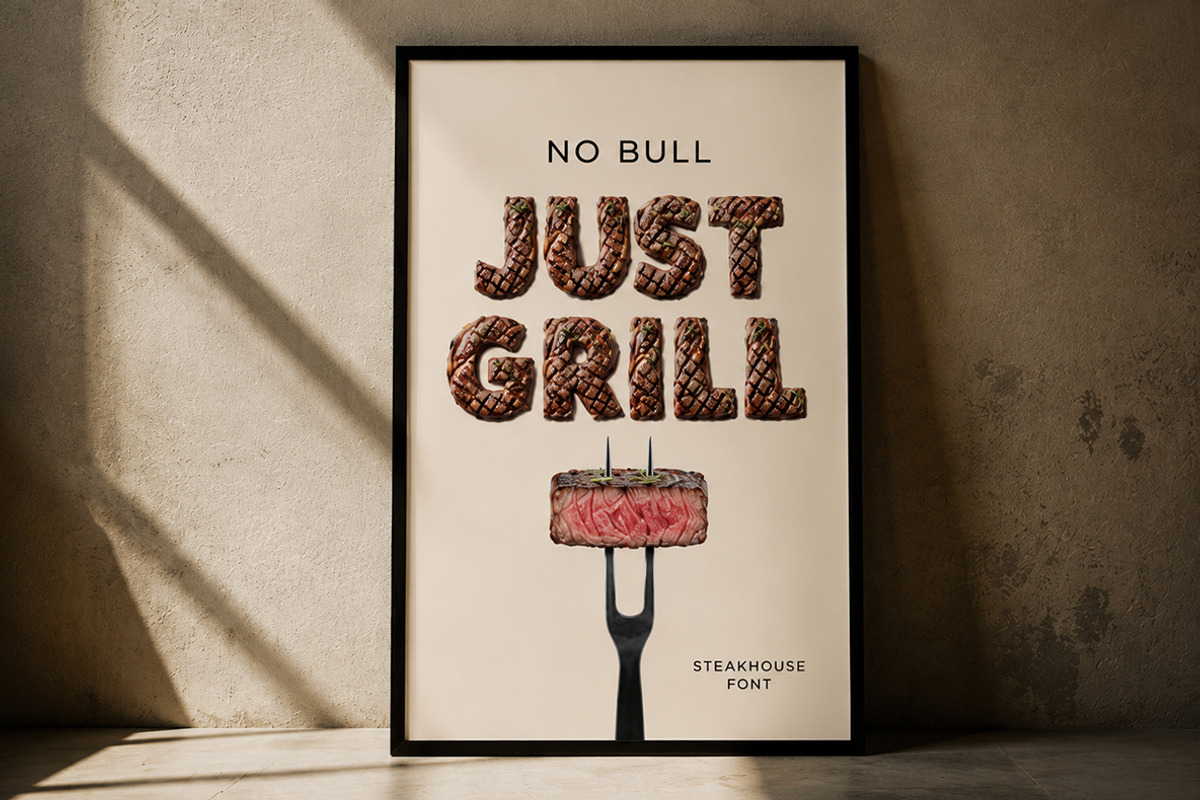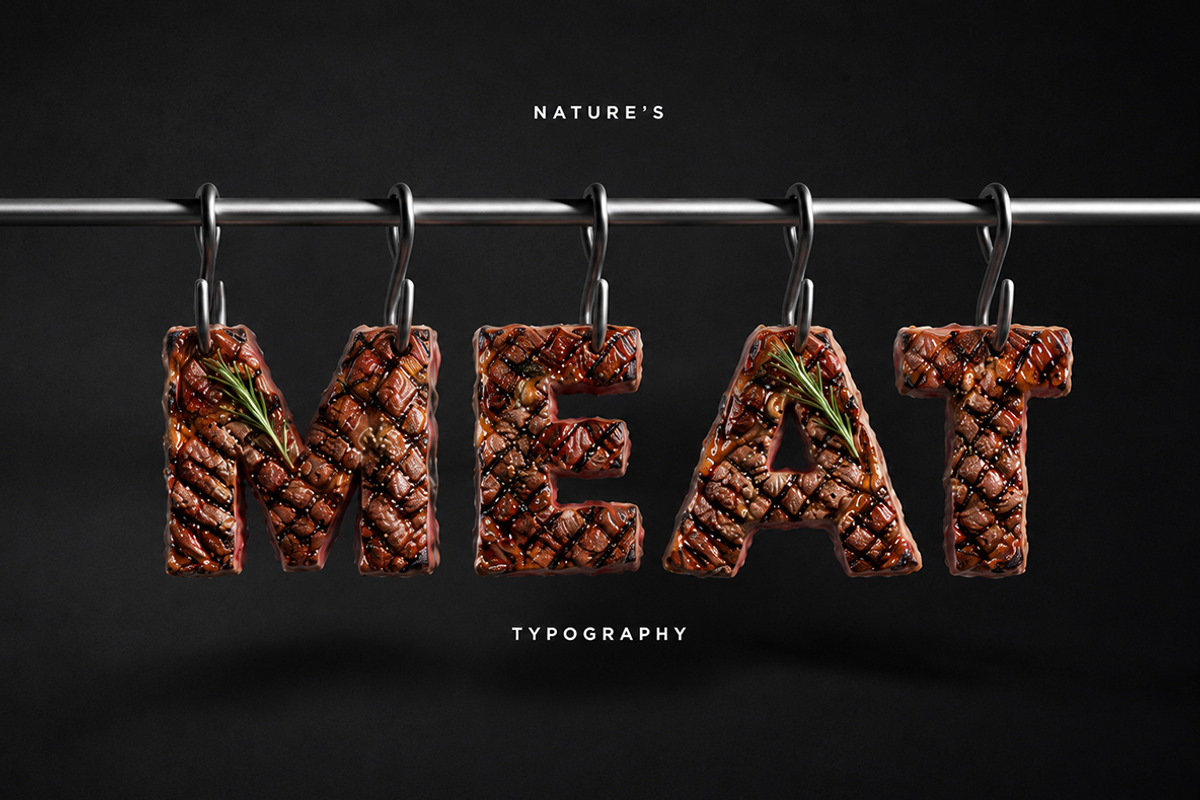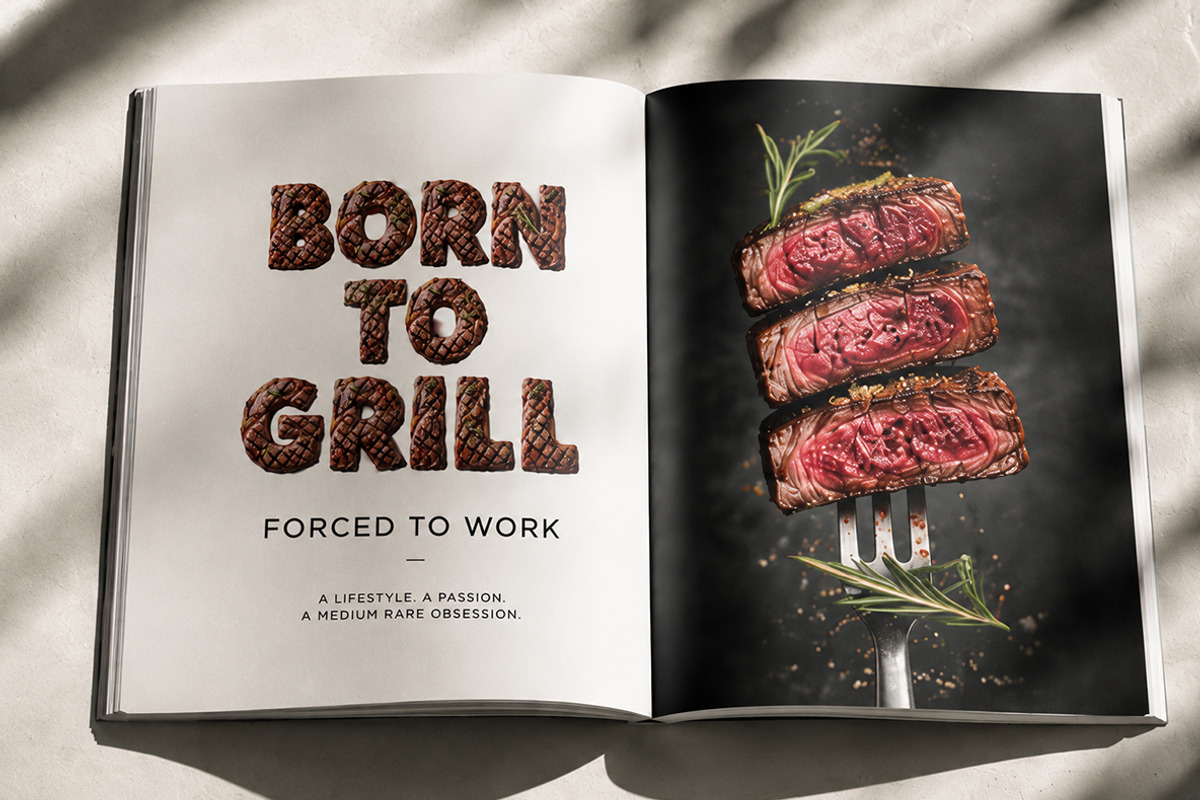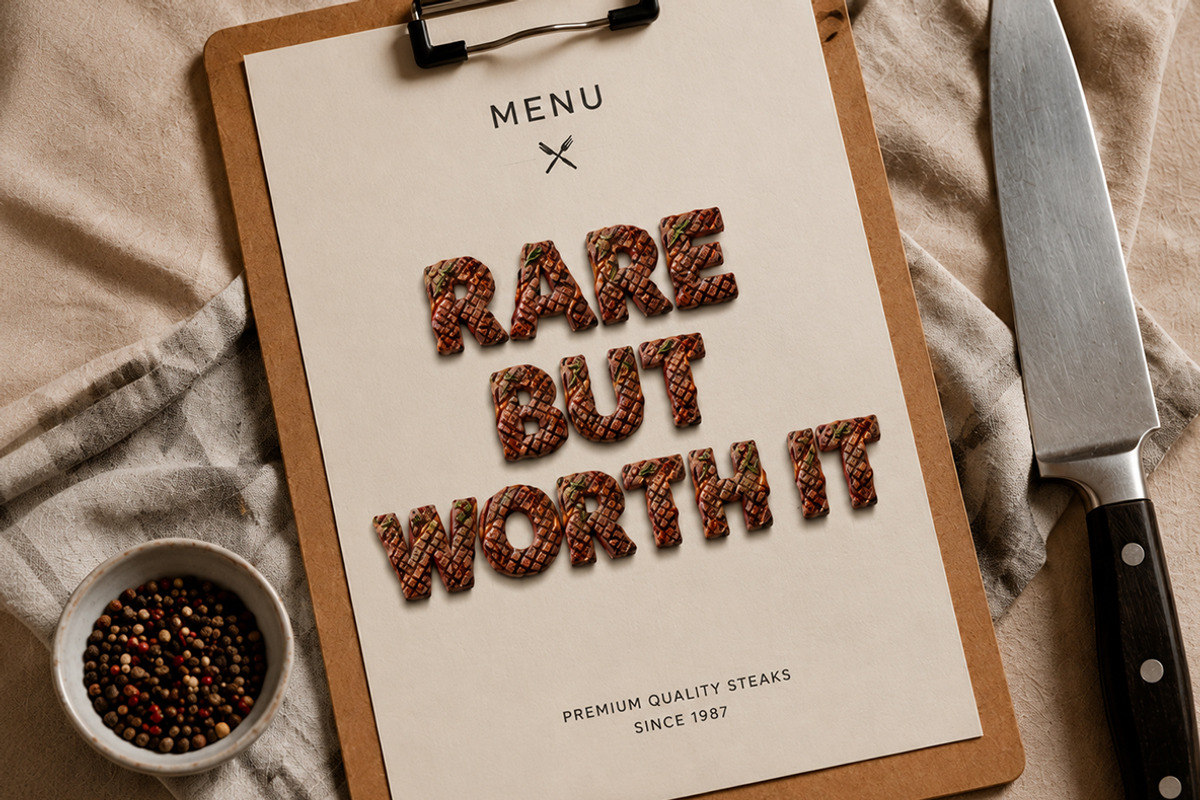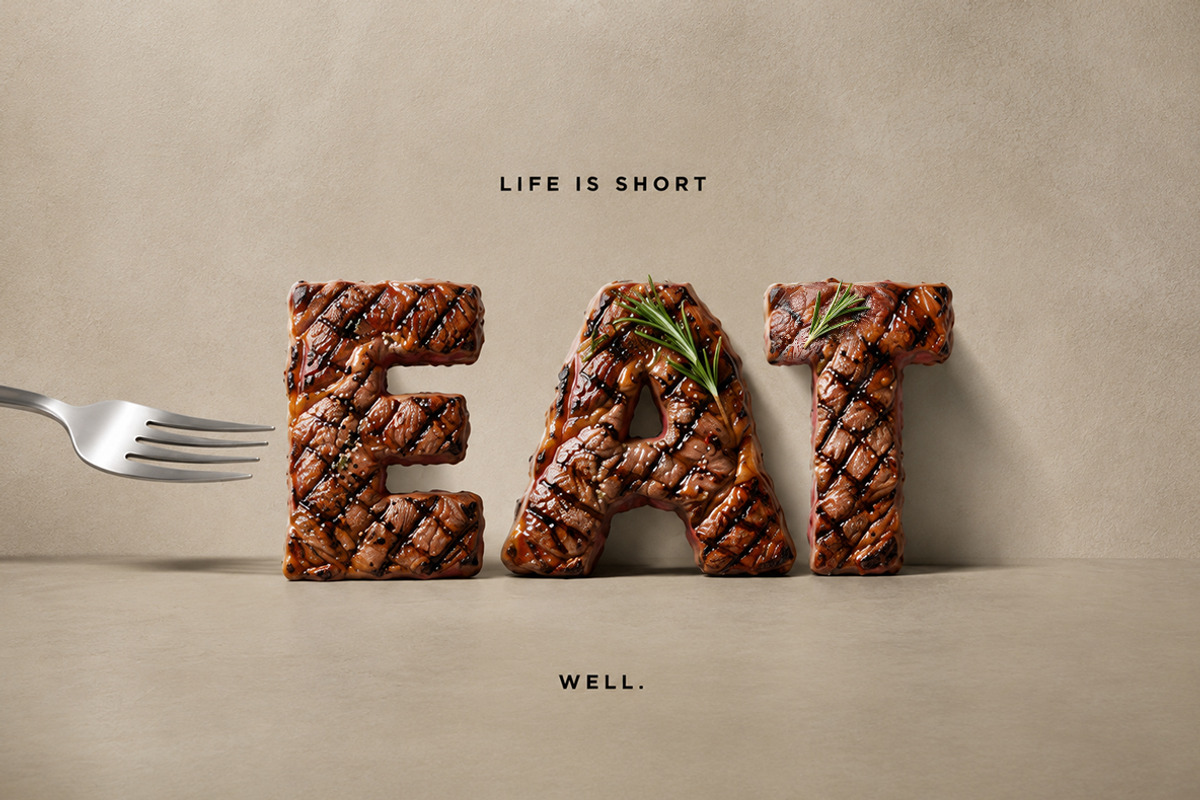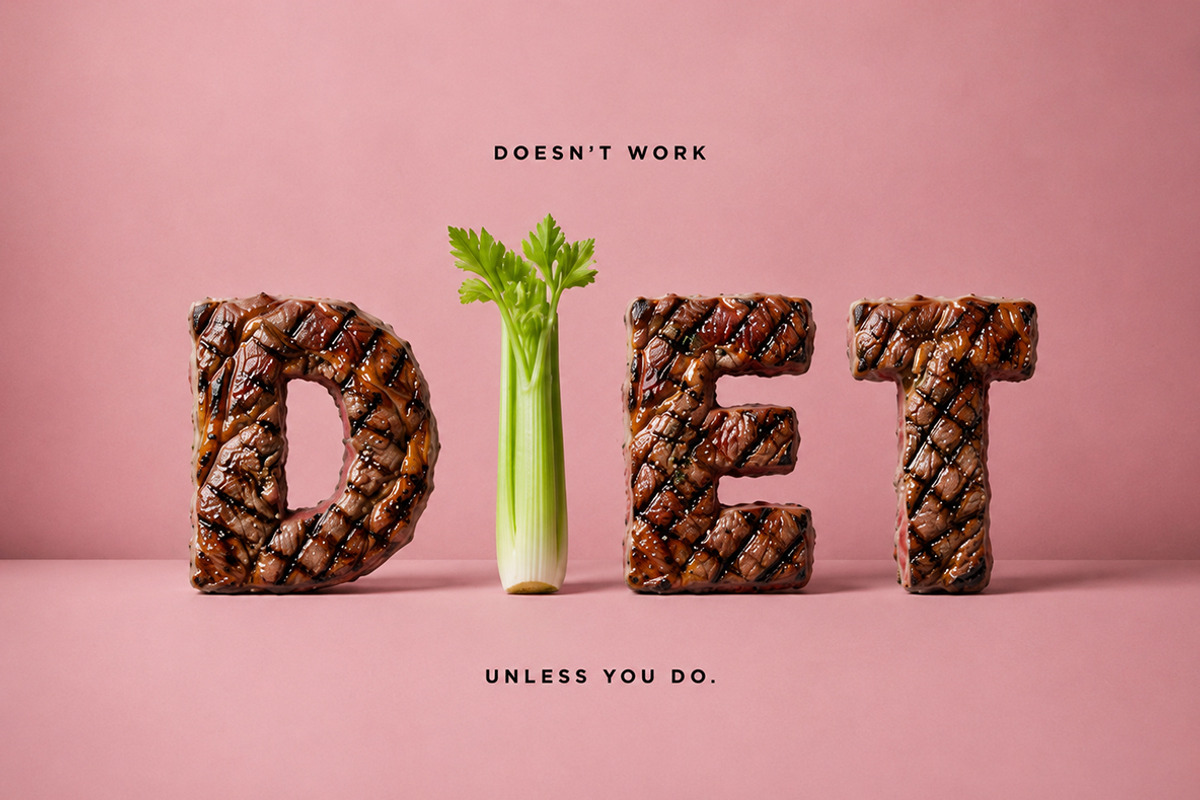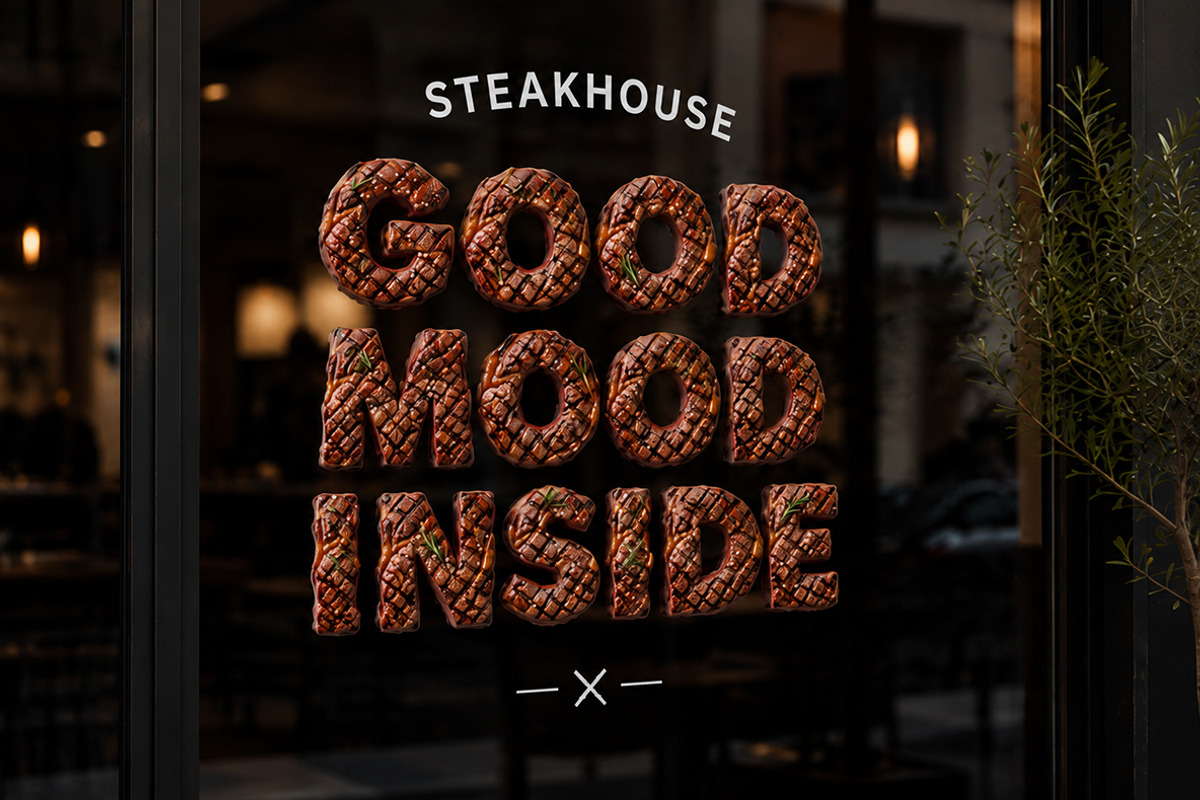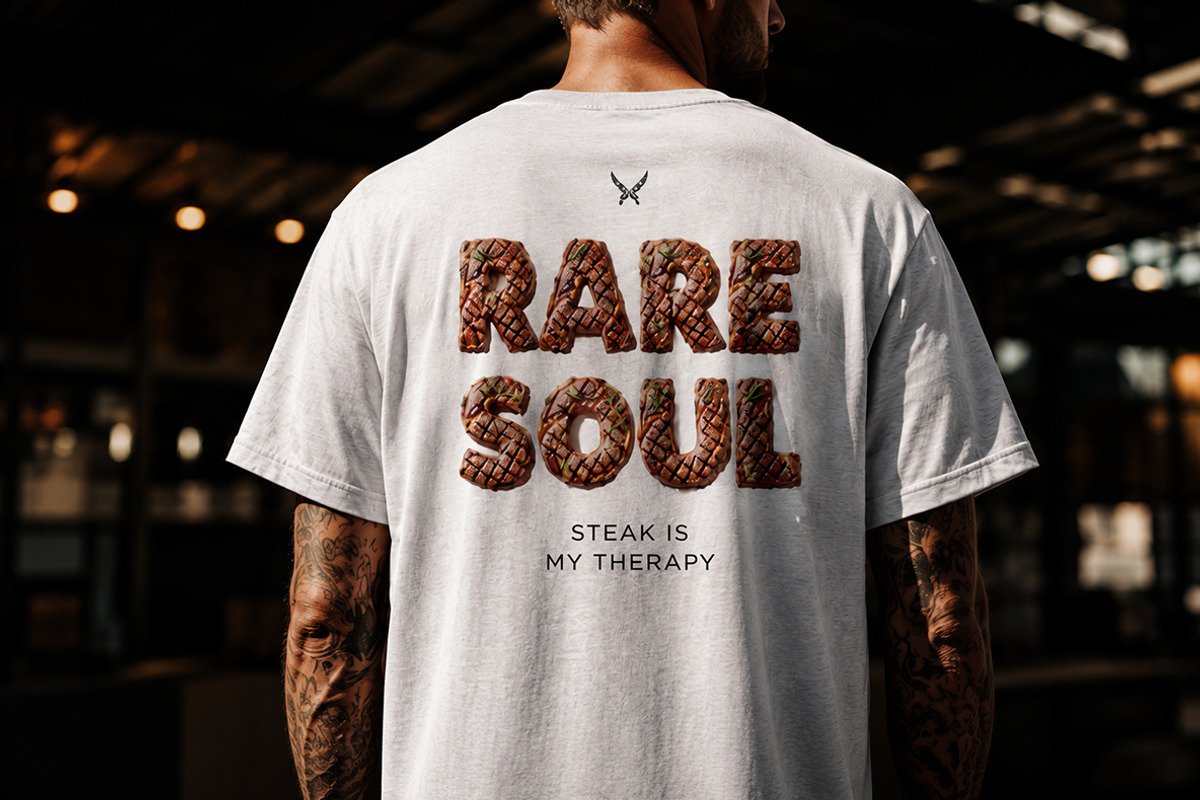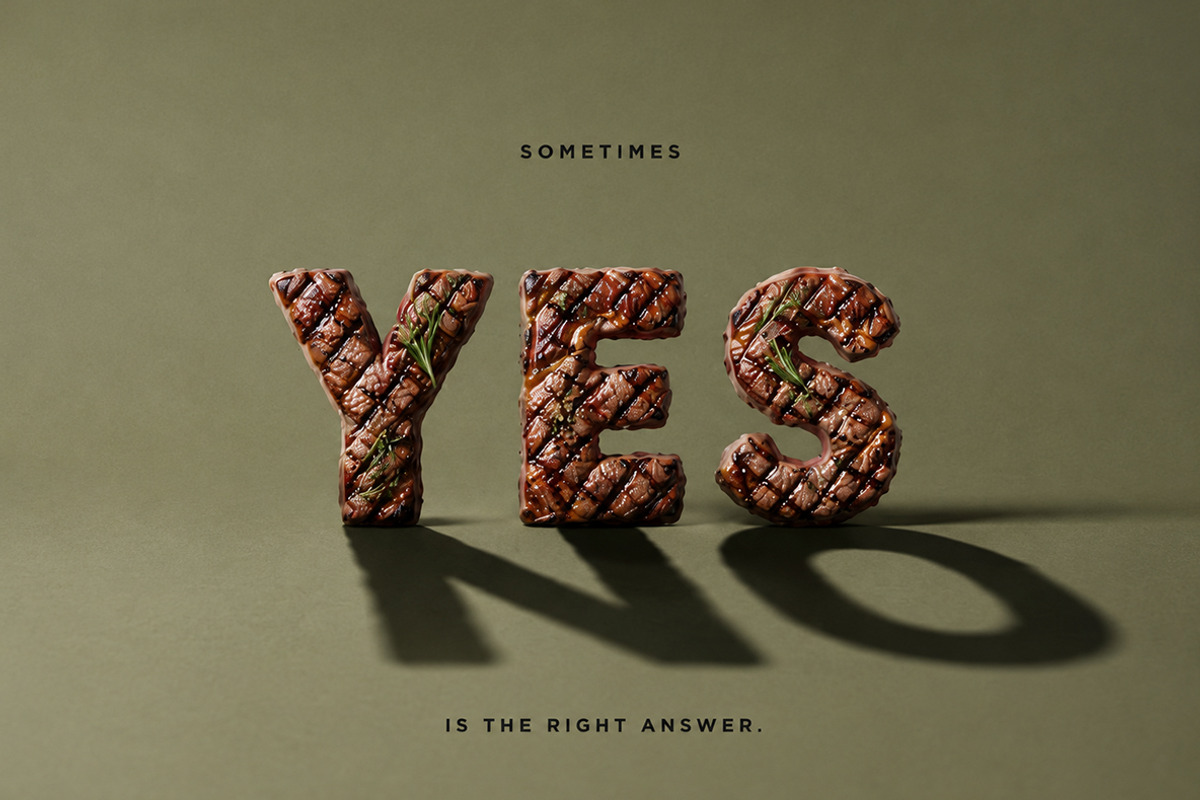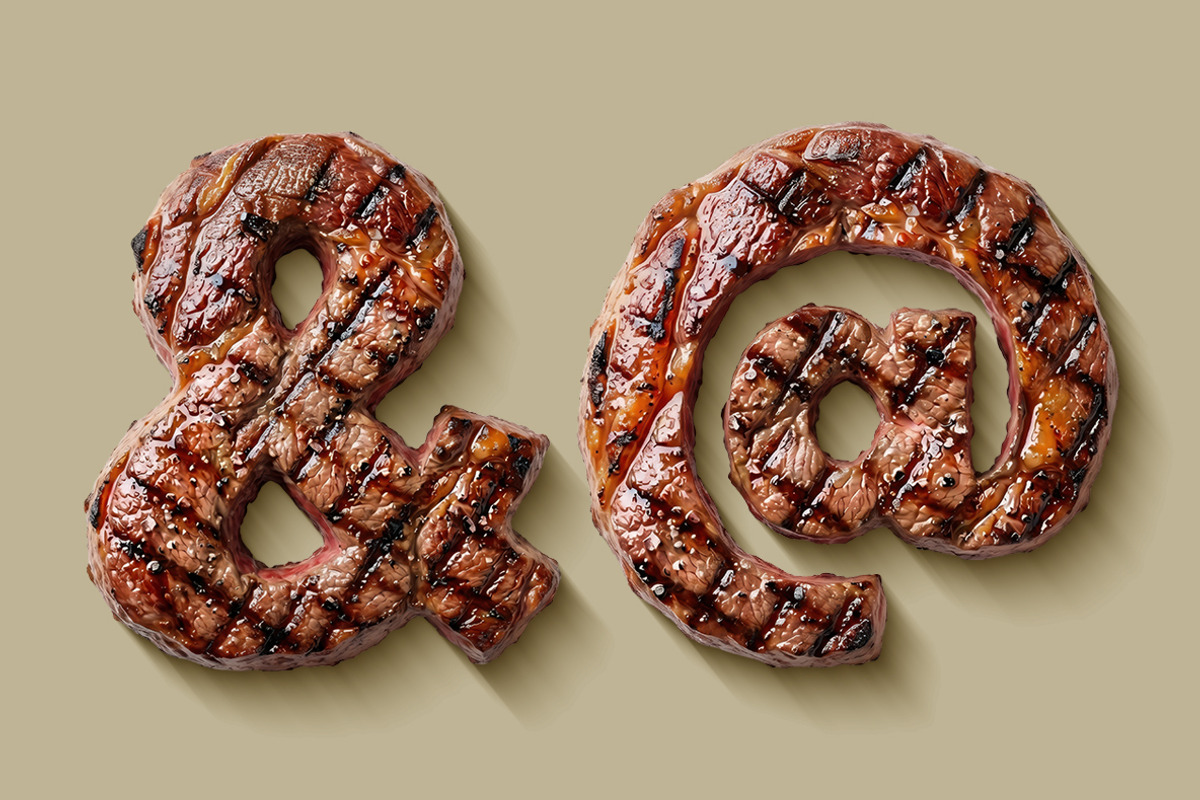
Steakhouse Font
Steakhouse Font brings the rich flavor of premium grilled meat into bold, eye-catching typography. Every letter is crafted with realistic steak textures, grill marks, juicy details, and aromatic rosemary accents, making your designs instantly memorable. Perfect for restaurant branding, menus, food packaging, barbecue events, posters, logos, social media graphics, and promotional materials. The package includes a fully functional OpenType (OTF) font for effortless typing, plus every character as an individual high-resolution PNG with a transparent background for maximum creative flexibility. Create deliciously bold headlines and mouthwatering visual compositions that capture attention and celebrate authentic steakhouse style.